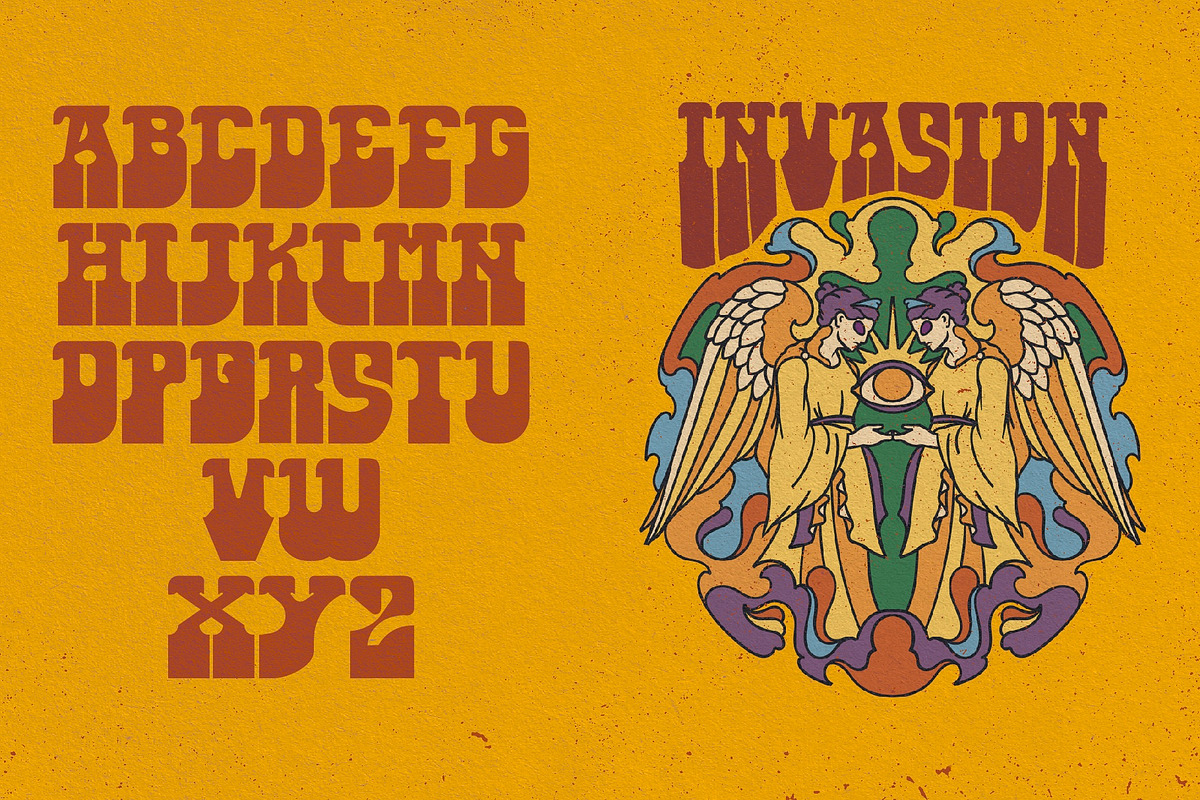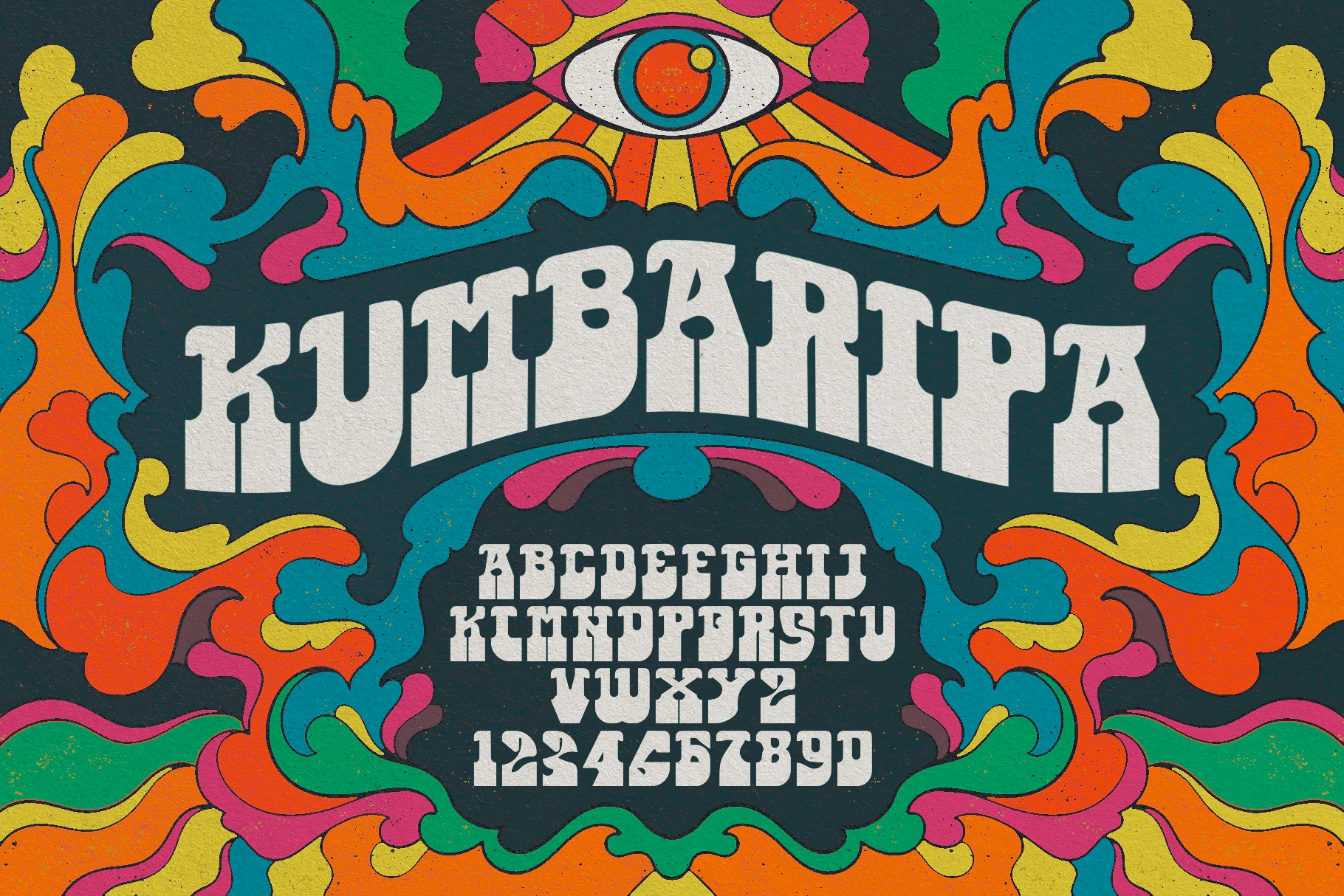
Kumbaripa psychedelic font
kumbaripa is a fun retro font with movement roots from the sixties psychedelic and Art Nouveau. Great for trippy band posters, logos, invitations, and anything else that needs a flowing trippy or hippie vibe,